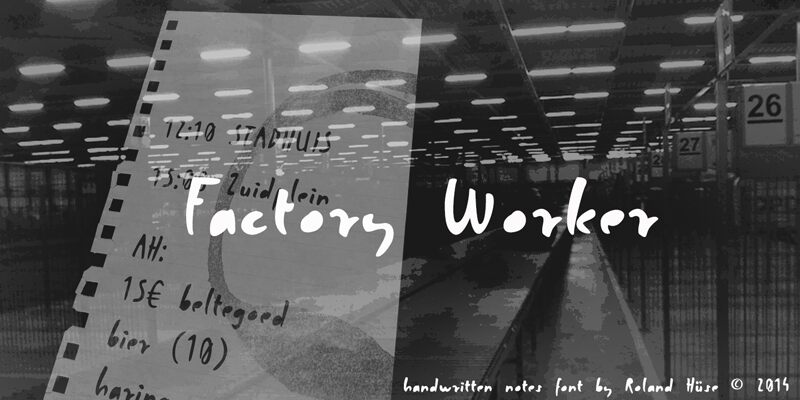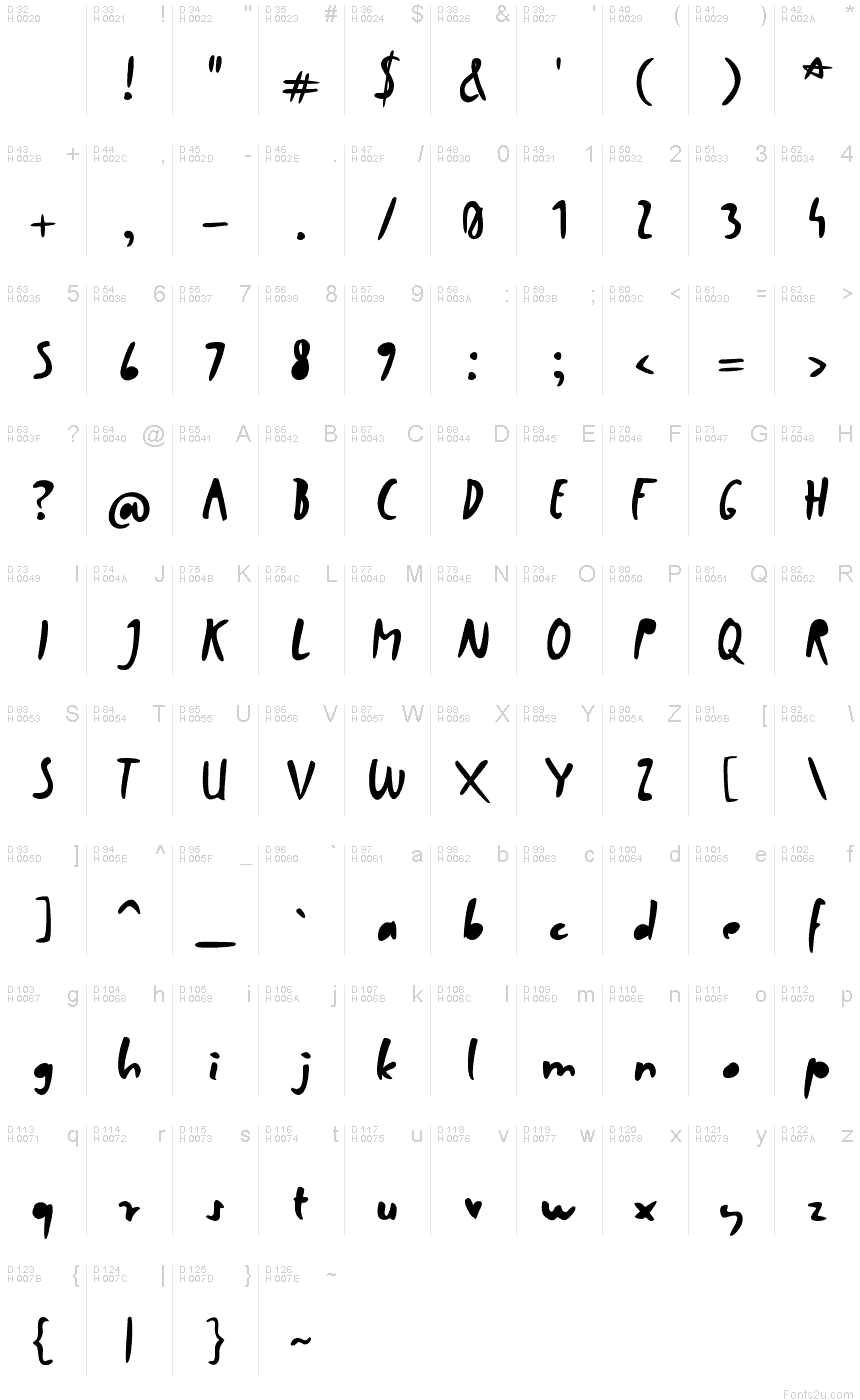
FACTORY WORKER is a hand drawn scribble font inspired by years I spent as a factory worker in the Netherlands.(I am still a factory worker though: I work in my own font factory! :)
Factory Worker
Roland Huse